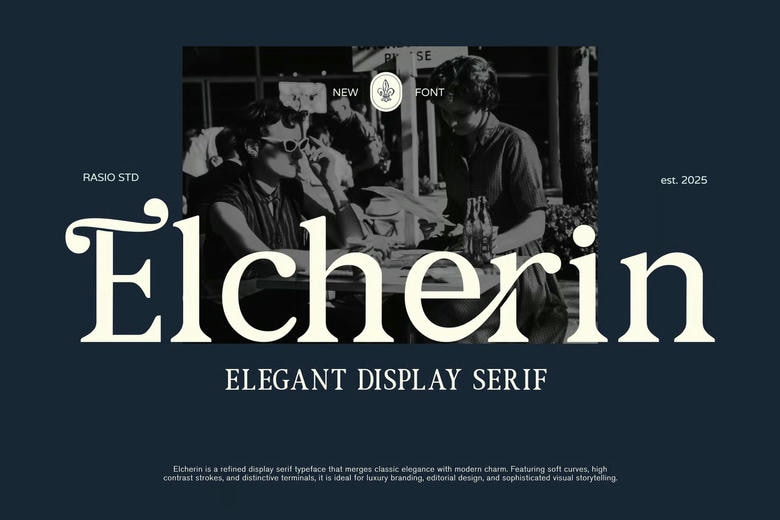
Elcherin Font
Elcherin is a lovely display serif font which folds traditional sophistication with the simplifications of modernity. With high contrast strokes, and unusual ligatures and smooth curves, it will be a wonderful tool to reveal luxury brands identities, editorial design, to professionally apply font in professional font, and to tell a high-level visual story. Very suited to wedding type, fancy logos, fancy luxury packaging and more contemporary serif branding ventures.
Elcherin Elegant Serif Font